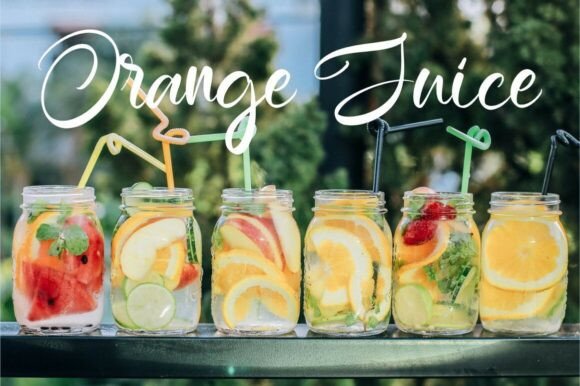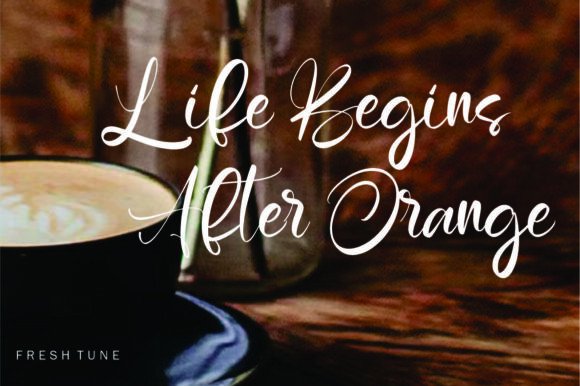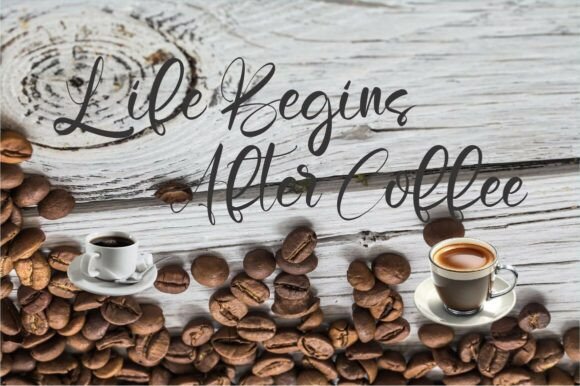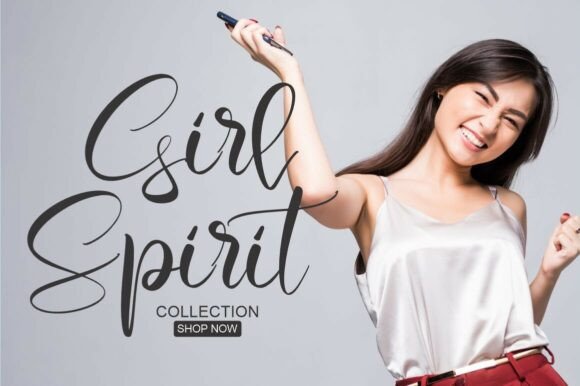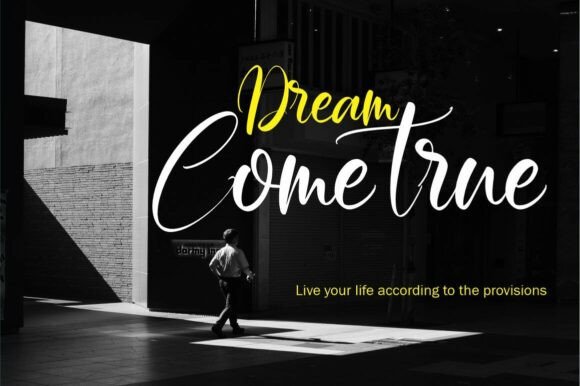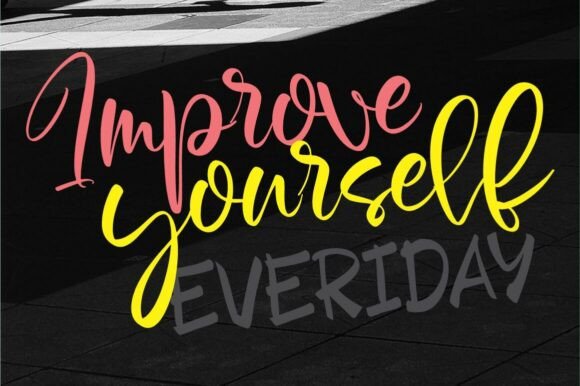
Introduction to Fresh Tune Font
Have you ever stumbled upon a design that makes you feel like you’re holding a brush stroke of pure magic? For me, that moment was when I first laid eyes on the Fresh Tune Font. Its fluid script and elegant curves transported me to a world of artistic expression, where creativity knows no bounds. The Fresh Tune Font is more than just a typeface – it’s a design resource that unlocks the potential for high-quality visual storytelling.
As a designer, I can attest that the right font can make all the difference in a project. The Fresh Tune Font, in particular, offers a unique combination of style and versatility, making it an ideal choice for creative projects that require a touch of sophistication and elegance. Whether you’re working on a logo, invitation, or social media graphic, this font delivers a transparent background that lets your design shine.
Key Features of Fresh Tune Font
- Unique, modern design with a fresh twist, making it an excellent design resource for creative projects.
- Perfect for use in logos, branding materials, and other design elements where a clean, modern look is desired.
Honest Review: Fresh Tune Font
As a designer, I’m always on the lookout for high quality design resources that can elevate my creative projects. Recently, I stumbled upon the Fresh Tune Font, and I’m excited to share my honest review with you.
What works well: ✨ The Fresh Tune Font is incredibly versatile and can be used for a wide range of creative projects, from music labels to fashion brands. The font is also highly customizable, making it easy to adjust the style to fit your specific design needs. Additionally, the font is available for free download, which is a major plus for designers on a budget.
Limitations: ⚠️ While the Fresh Tune Font is a great resource, it does have some limitations. For example, the font only comes in a transparent background, which can be a challenge when working with complex designs. Additionally, the font may not be suitable for use in situations where a bold, eye-catching font is required.
Overall, I would recommend the Fresh Tune Font to designers looking for a high quality, free design resource. While it may have some limitations, its versatility and customizability make it a valuable addition to any design toolkit.
- Only available with transparent background
- May not be suitable for bold, eye-catching designs
The Fresh Tune Font is perfect for a variety of creative projects, including social media graphics, presentations, posters, and more. Its clean and modern design makes it an ideal choice for designers and non-designers alike.